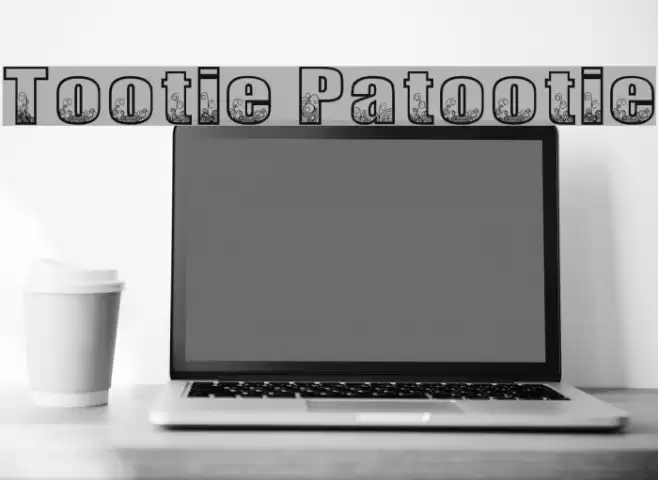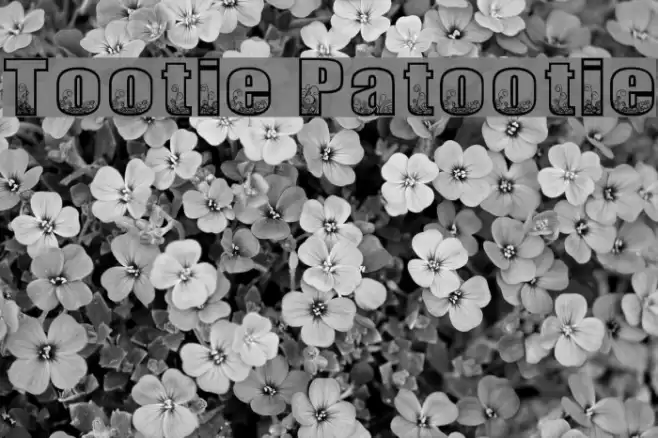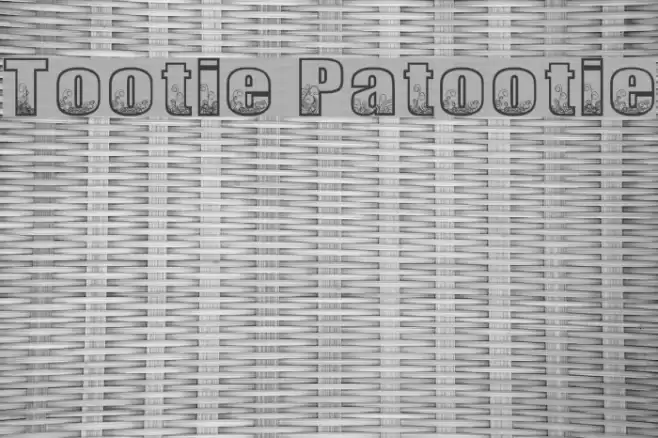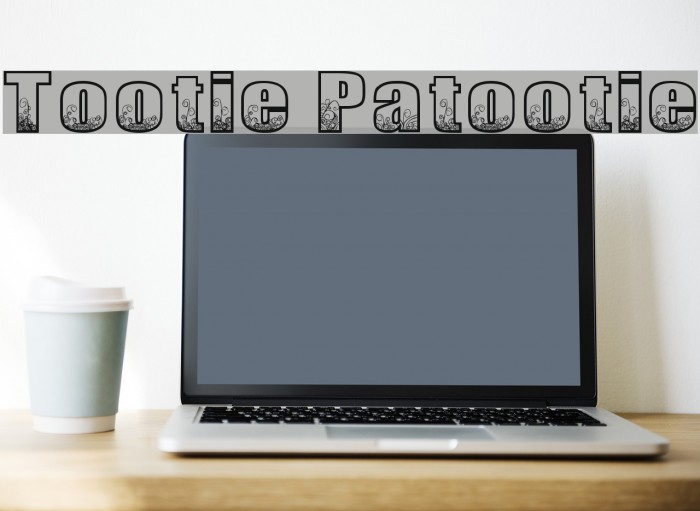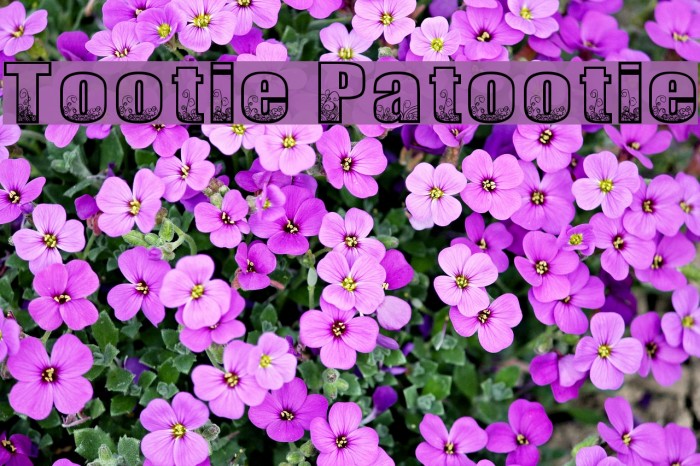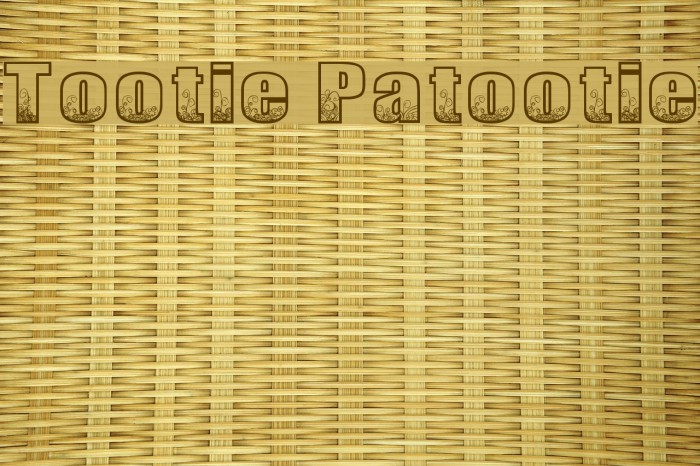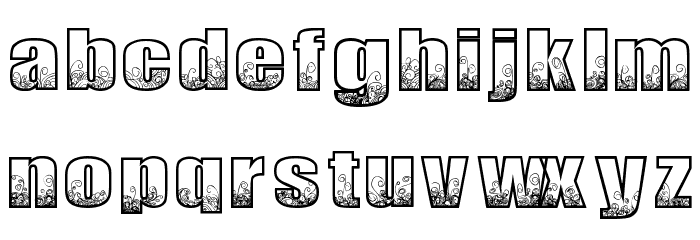
Tootie Patootie Font
Tootie Patootie Description
This font features a playful and decorative style, characterized by intricate floral patterns within each letter. The uppercase and lowercase letters are bold and have a whimsical charm, making them stand out with their unique design. The numbers are more straightforward, maintaining a clean and classic look without the decorative elements. Special characters are included, providing versatility for various uses. The overall design is eye-catching and suitable for creative projects that require a touch of elegance and fun.
A decorative font with floral patterns in bold letters, perfect for creative projects from Uncategorized fonts.
- Proposed Projects: Ideal for invitations, greeting cards, children's book covers, and playful branding.